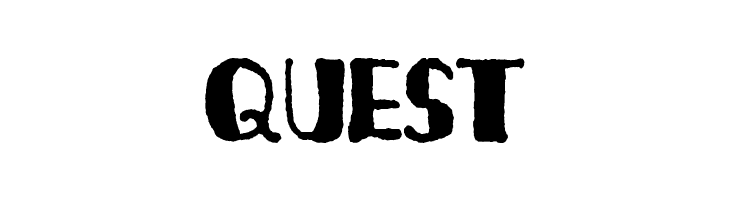
Dirty Grunge Fiesta Font
- Font: Dirty Grunge Fiesta
( Fonts by Cumberland Fontworks - http://www222.pair.com/sjohn/fonts.htm - S. John Ross )
A bold, freehand-style font with dynamic strokes and artistic flair.